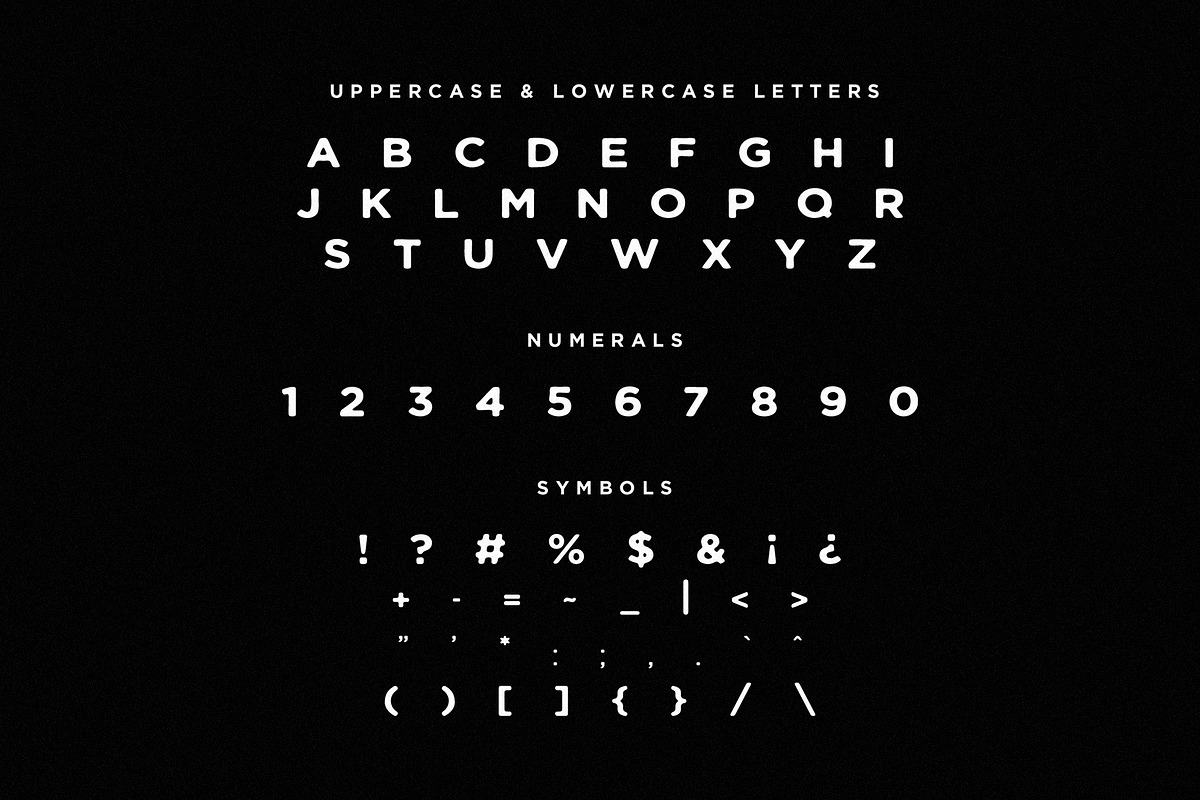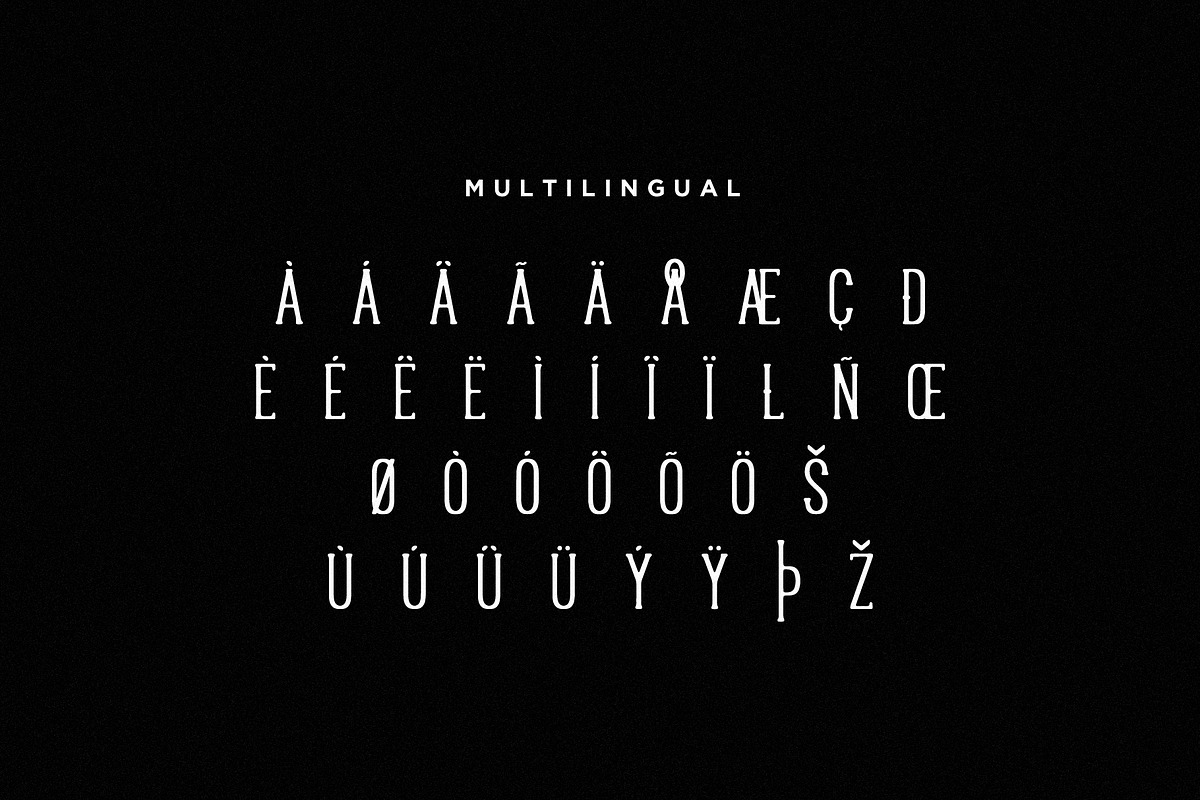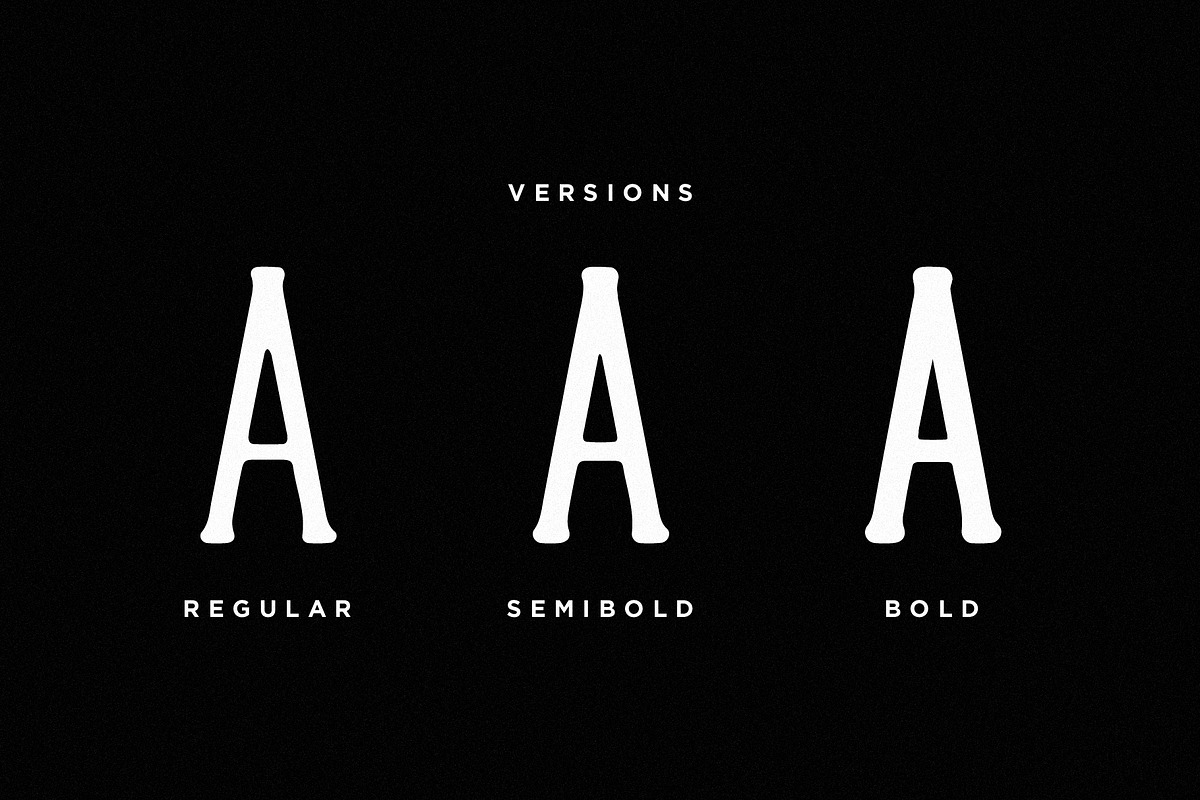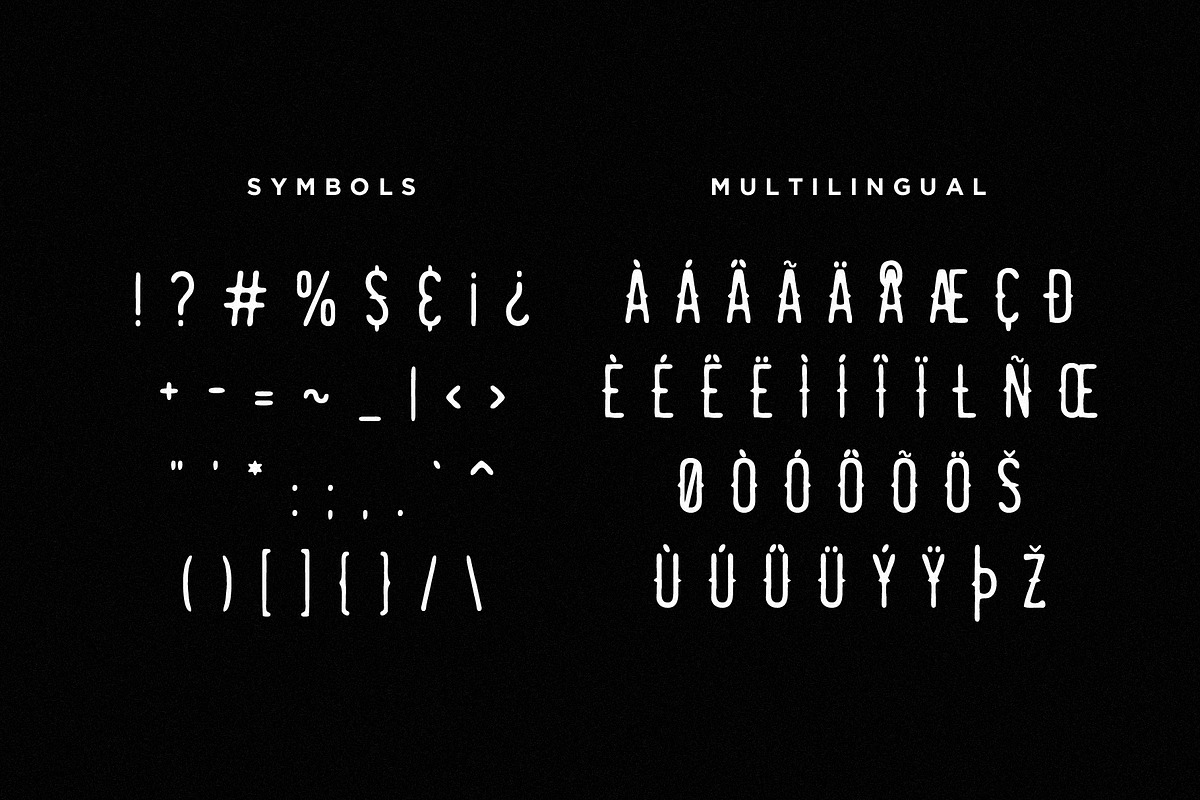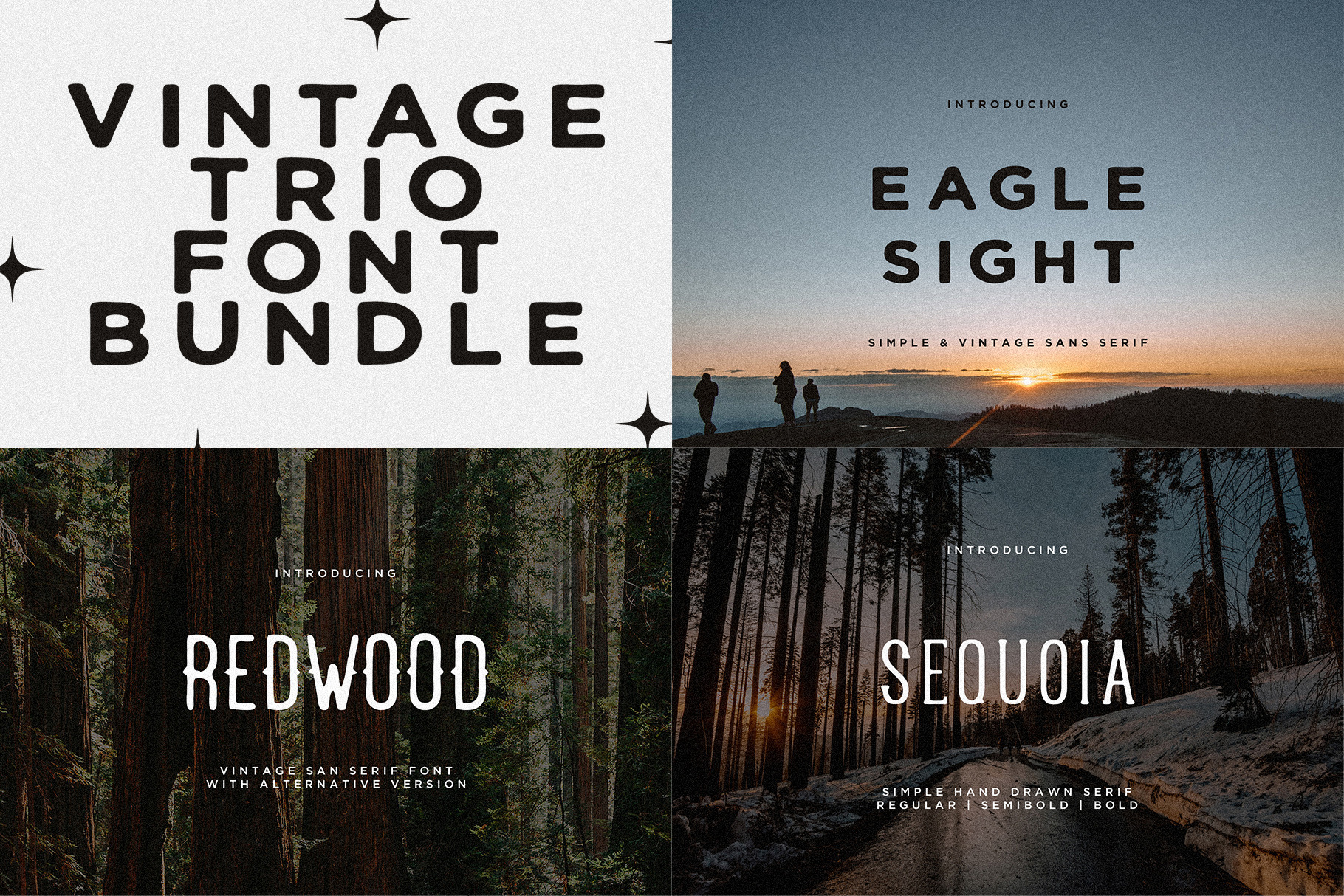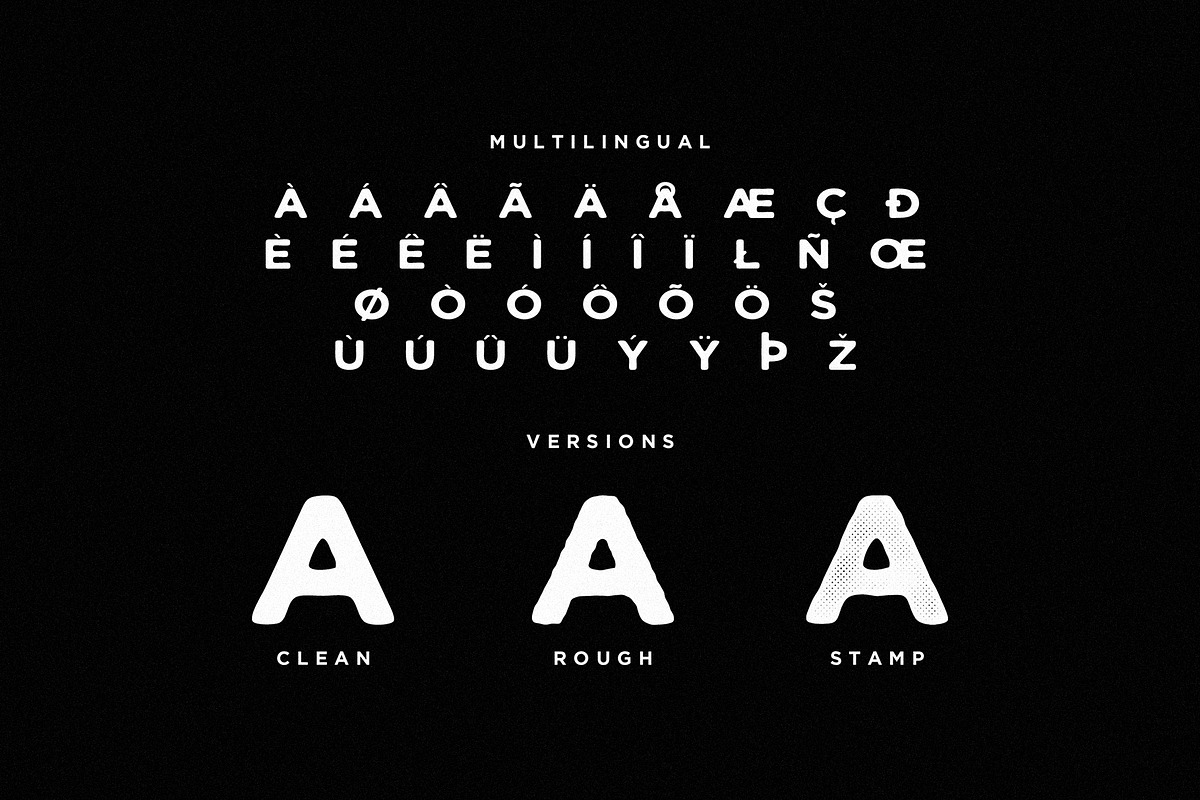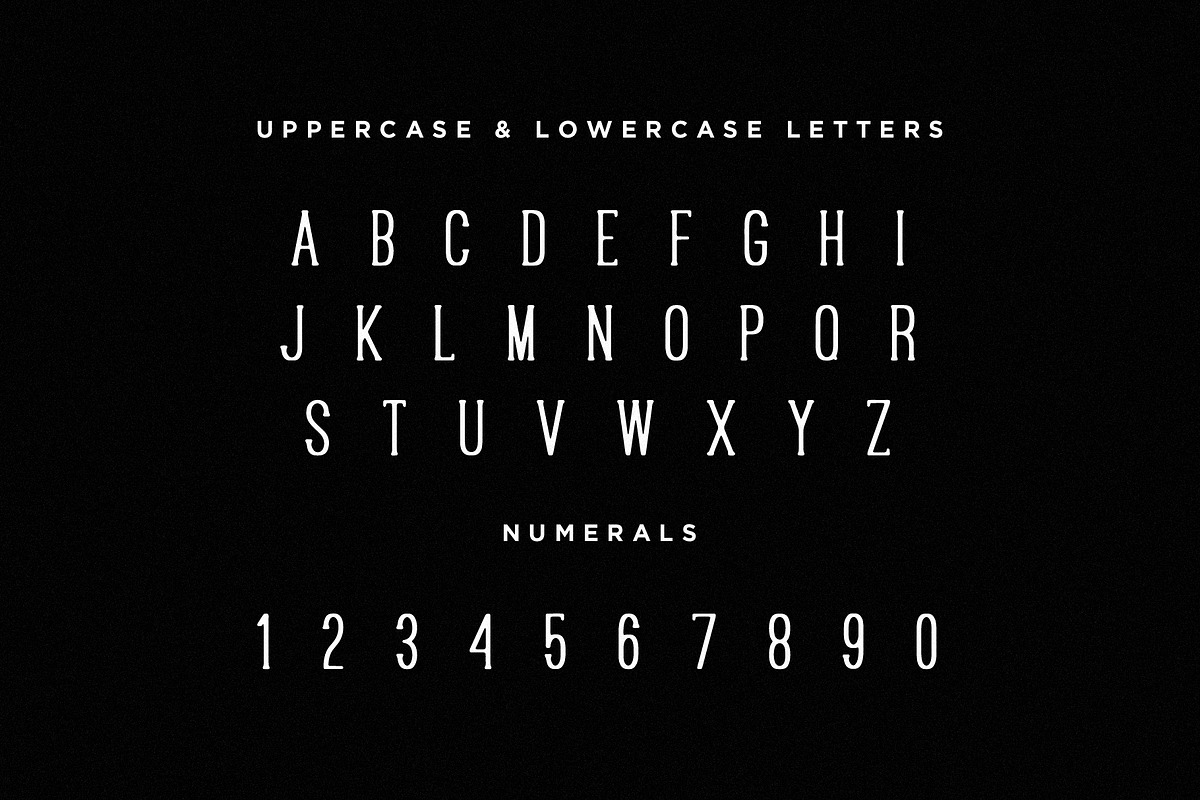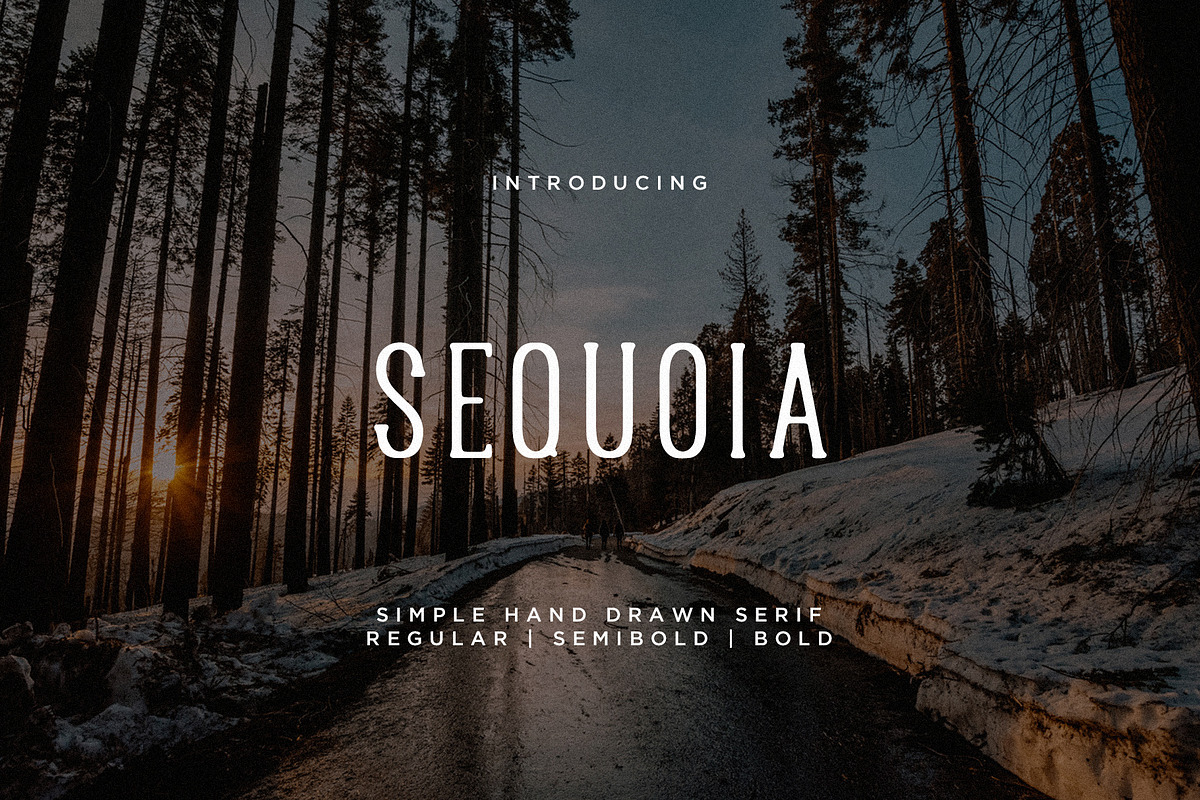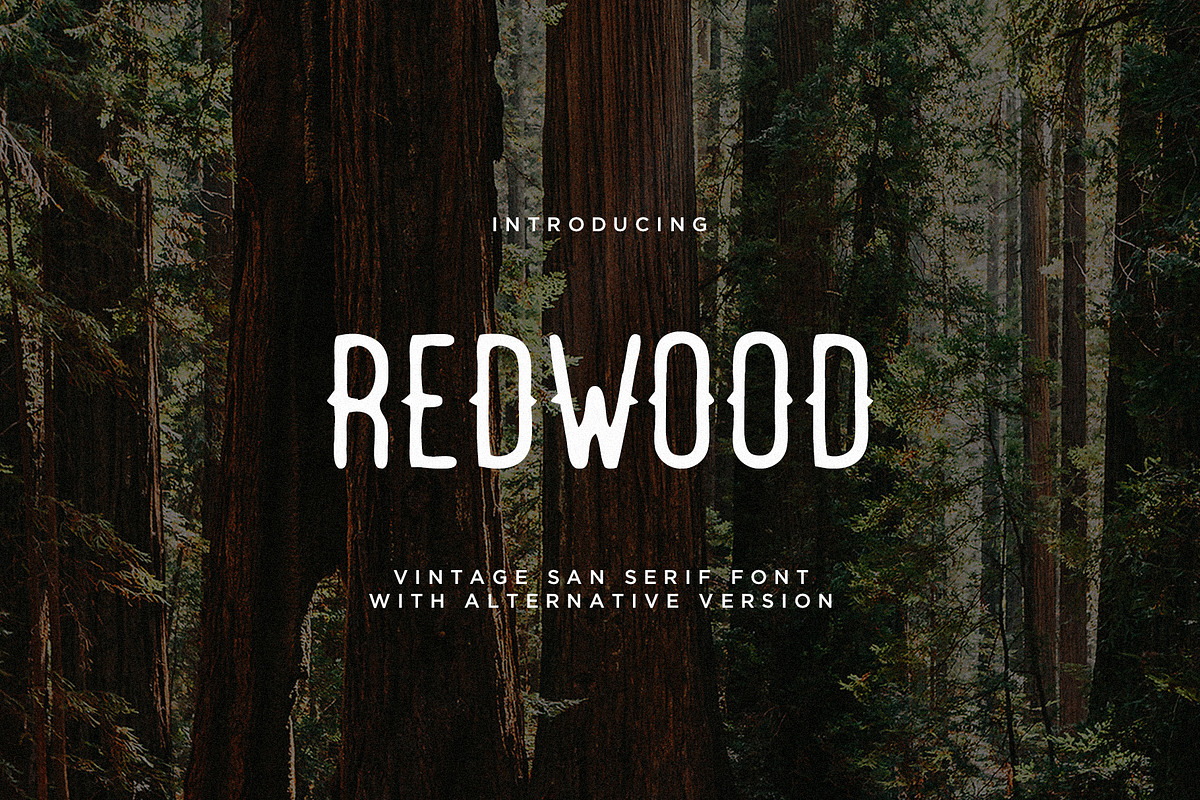
Vintage Trio Font Bundle
Give your designs timeless character with the Vintage Trio Font Bundle - a set of three handcrafted, retro-inspired typefaces. Each font brings its own nostalgic style, perfect for logos, labels, posters, packaging, and vintage-themed branding. Easy to use, beautifully detailed, and made to add classic charm to any project.
Vintage Trio Font Bundle includes: